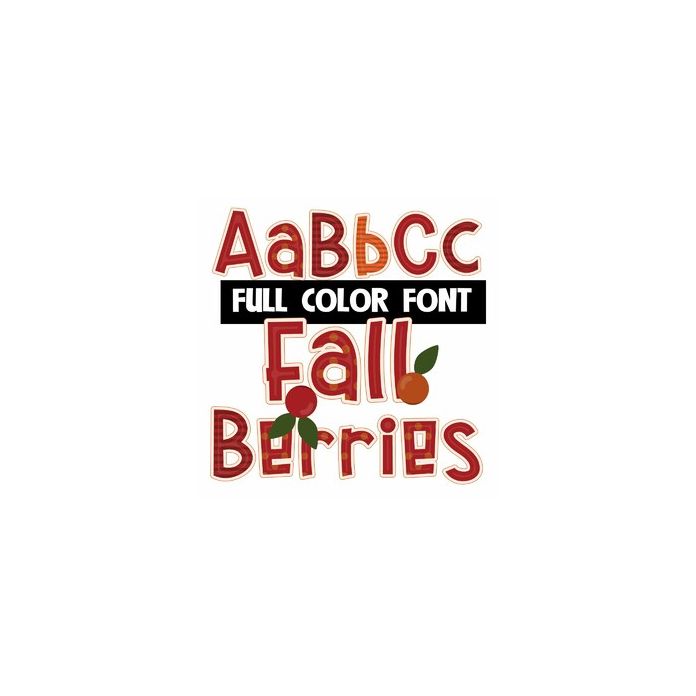
This full-color font features red and orange patterned letters with optional berries you can access by typing square or triangle brackets to decorate the letters.